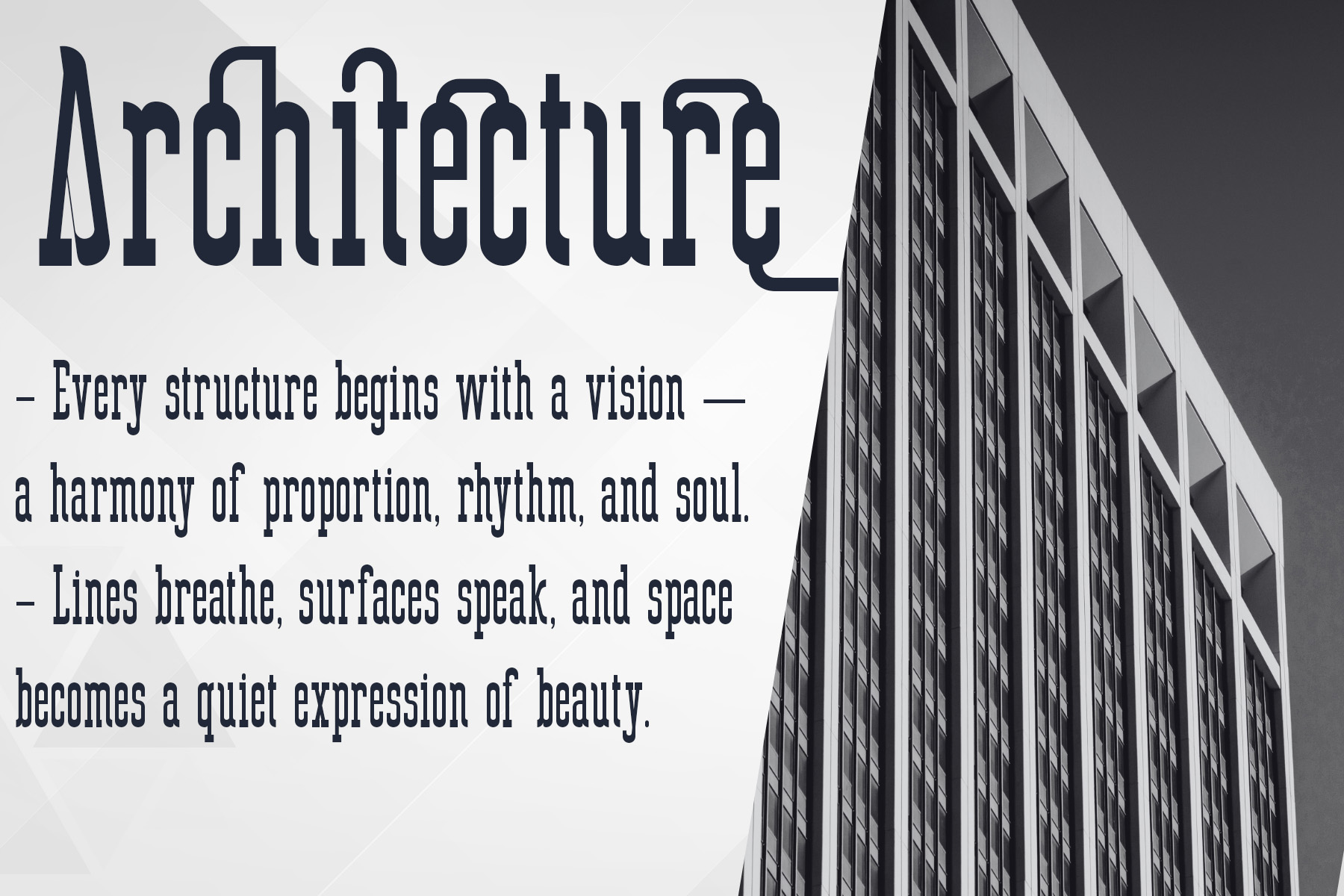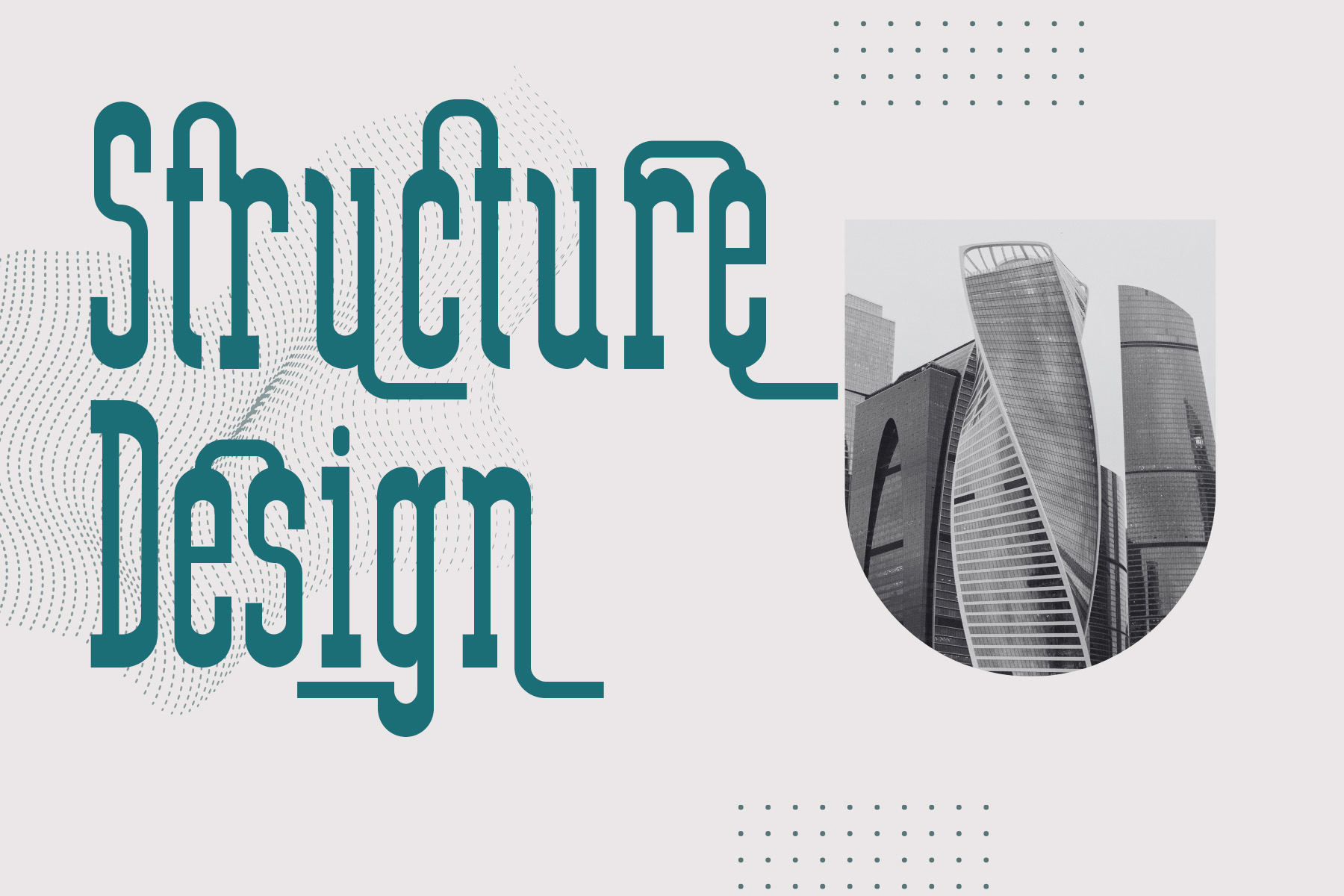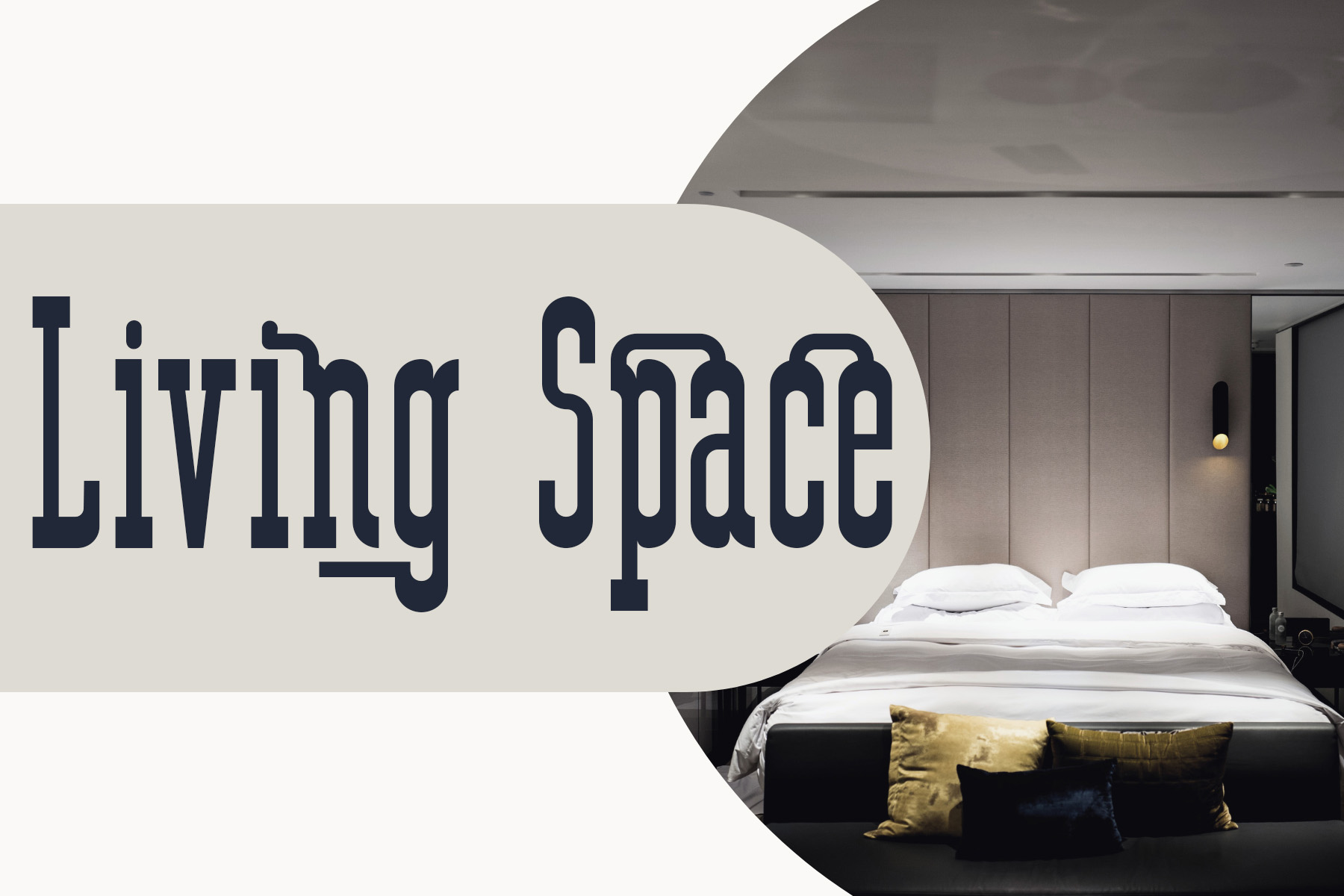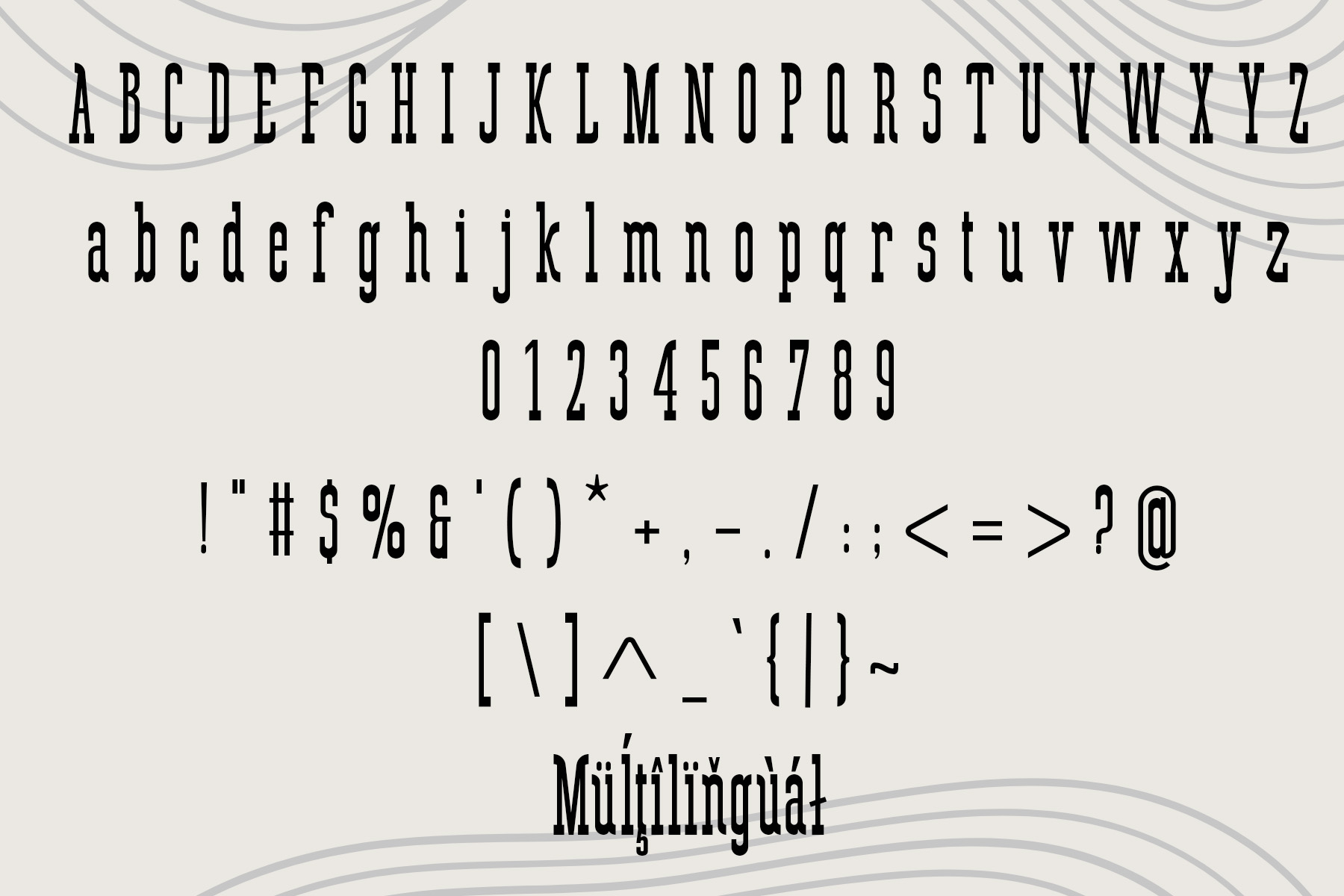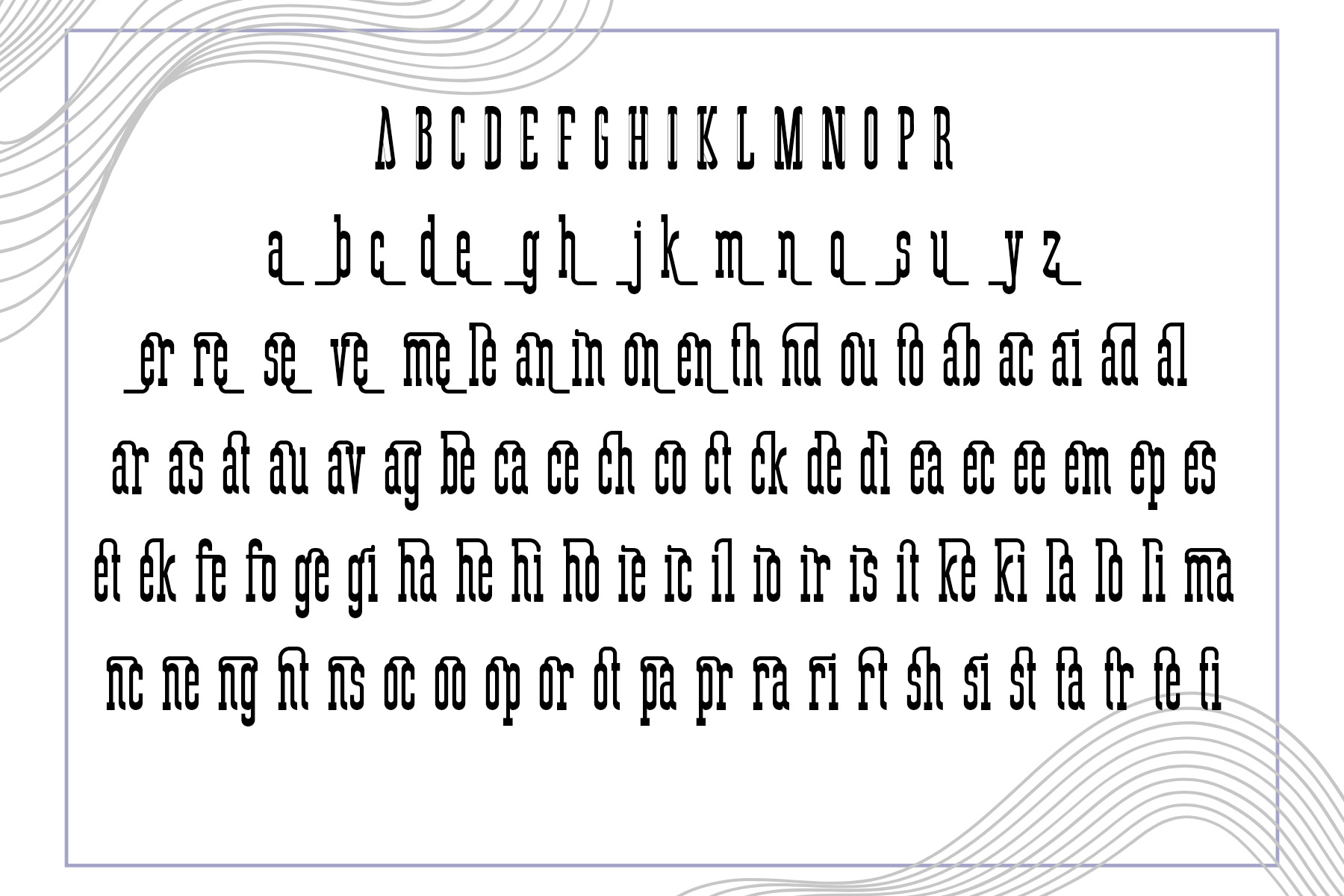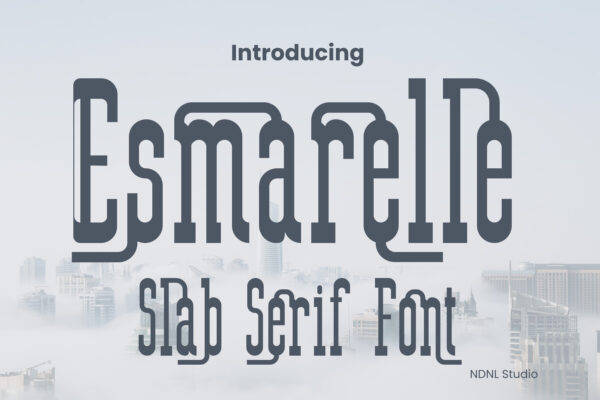
Introducing Esmarelle !
Esmarelle is a stylish slab serif font that blends modern creativity with a touch of vintage elegance. Its tall, curved strokes and bold slab details make it perfect for logos, posters, and editorial designs that demand a sophisticated yet artistic look. Esmarelle stands out with its unique letter connections, offering both strength and personality in every character.